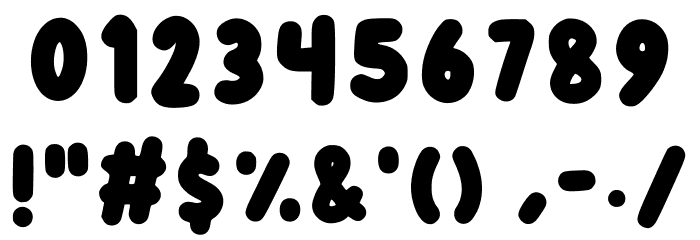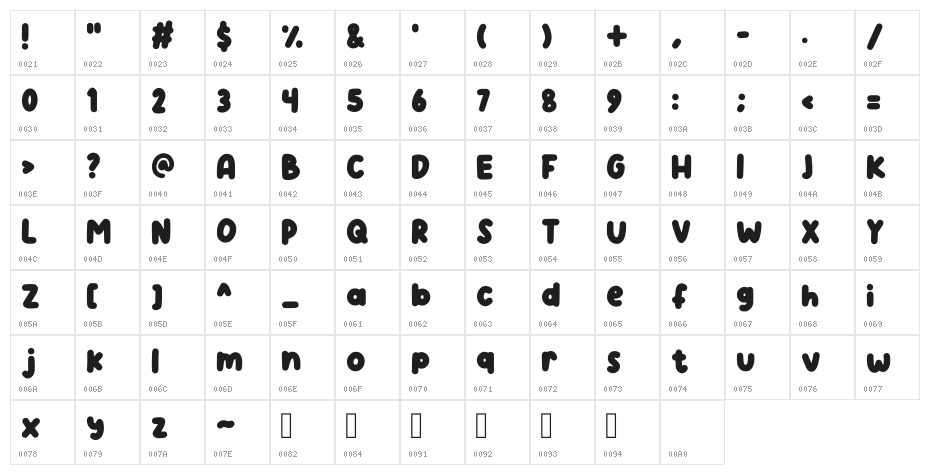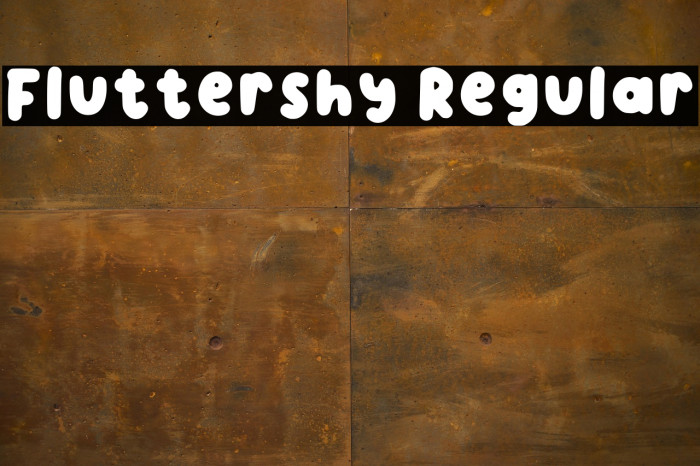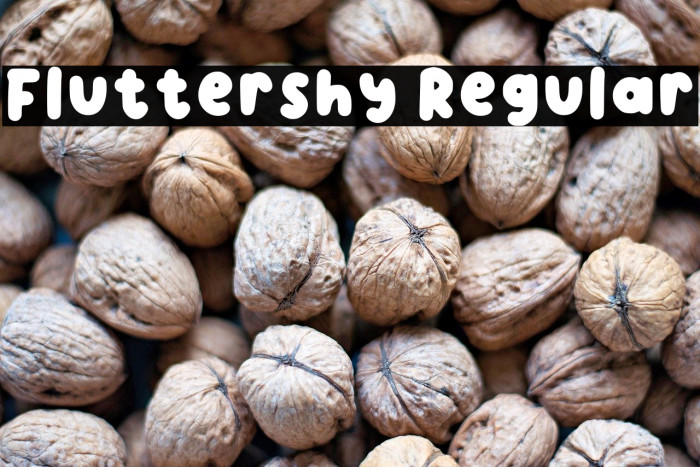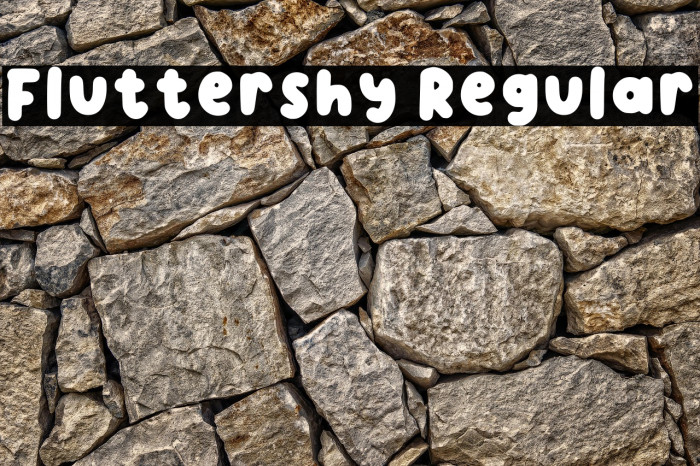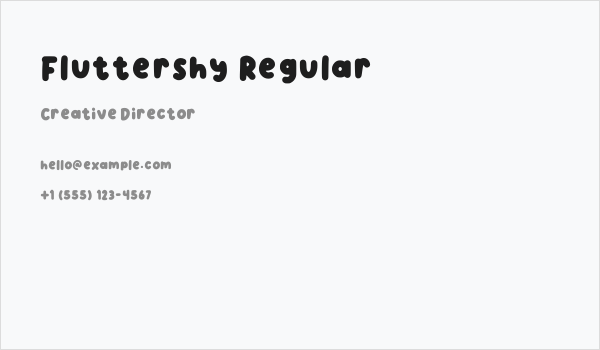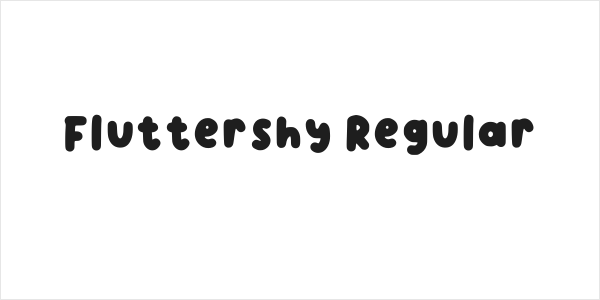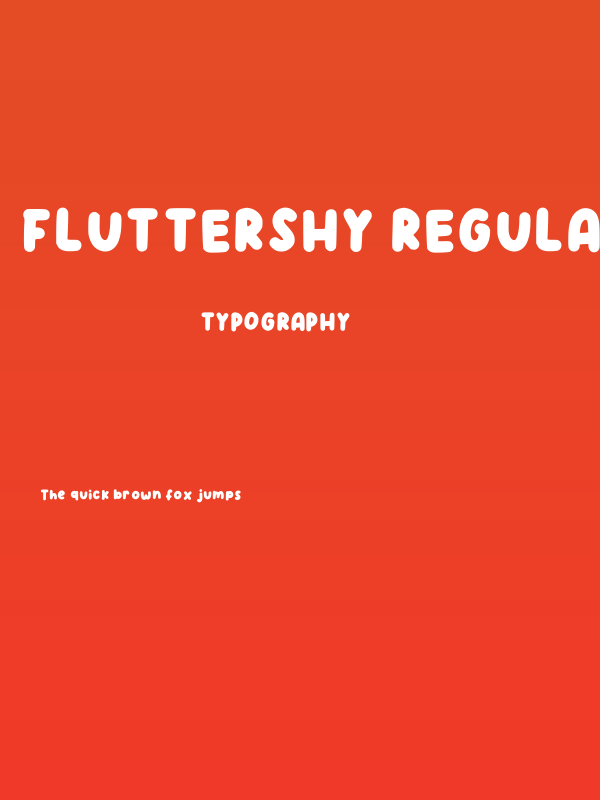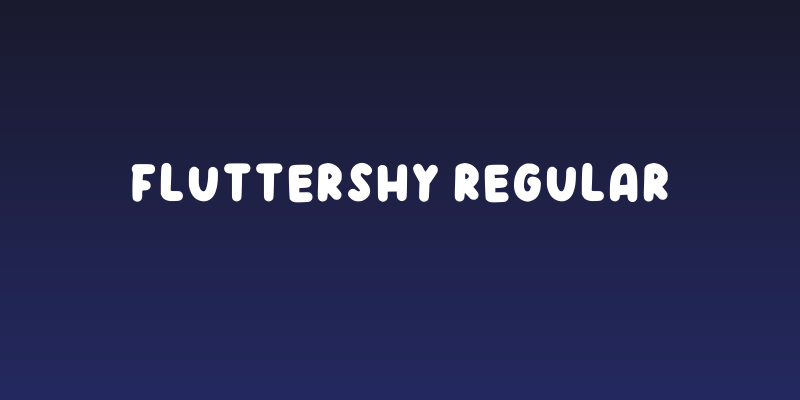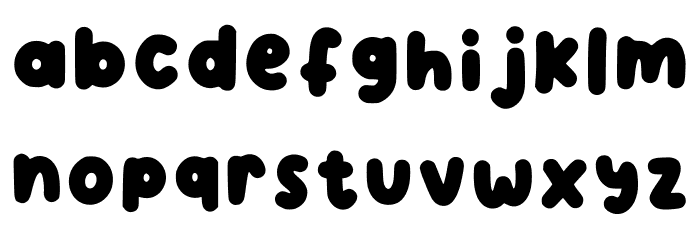
Fluttershy Regular Font
Fluttershy Regular Description
This playful and rounded font exudes a friendly and approachable vibe. The characters are bold and have a uniform thickness, creating a cohesive look. The rounded edges and lack of sharp angles give it a soft, welcoming appearance. It maintains a consistent weight throughout, making it easy to read while still retaining a unique, whimsical charm. The font is well-suited for projects that require a fun and informal touch, such as children's books, playful branding, or casual invitations. Its boldness ensures it stands out, while the rounded forms keep it from feeling too harsh or formal.
| Proposed Projects | Ideal for children's books, playful branding, casual invitations, and fun posters. |